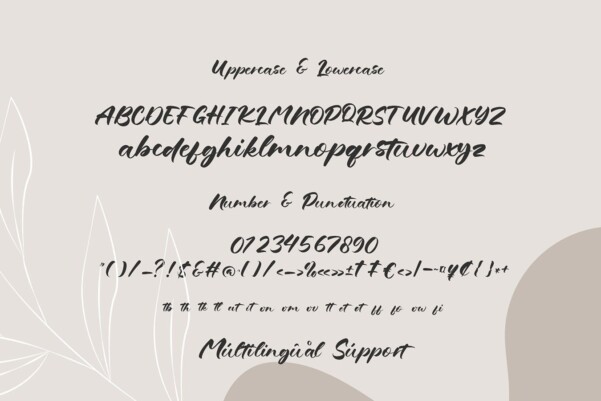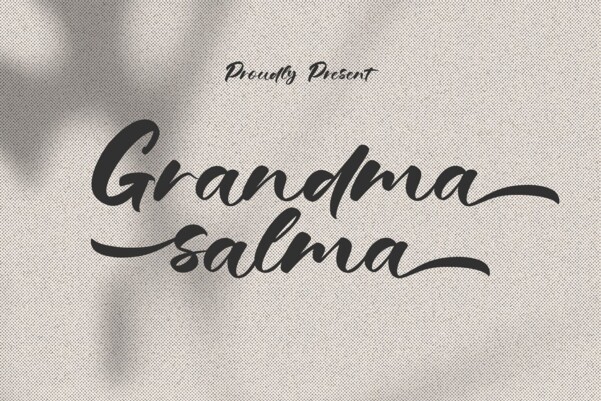
Grandma Salma Font
Designer: agungkreatif
Grandma Salma Font is a handwritten typeface inspired by the warmth and love of a grandmother. This font has a friendly, gentle and tender character, like a grandmother’s hug which is always comforting.